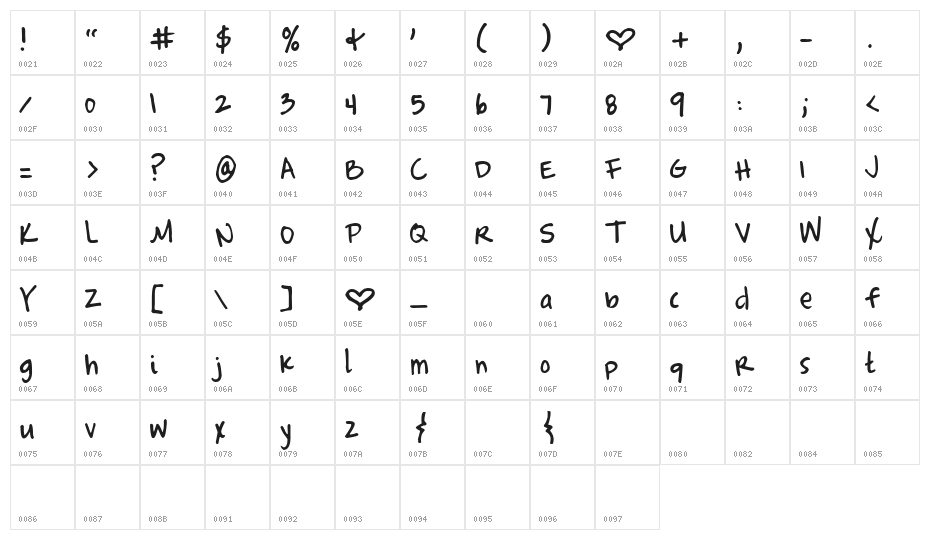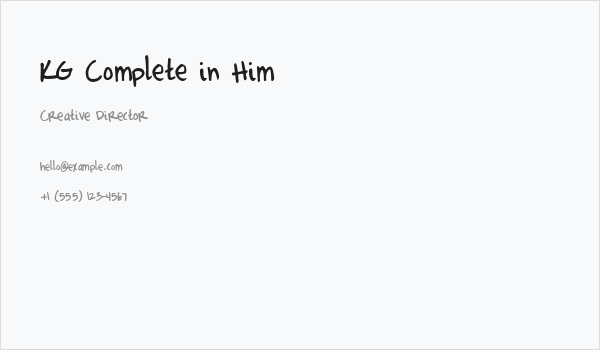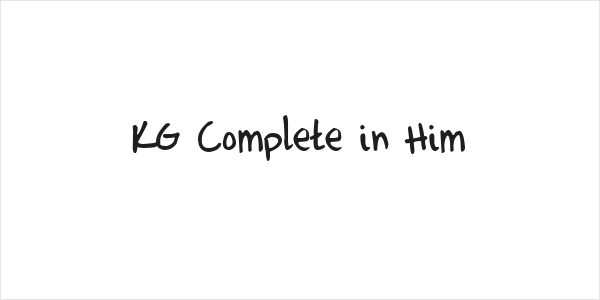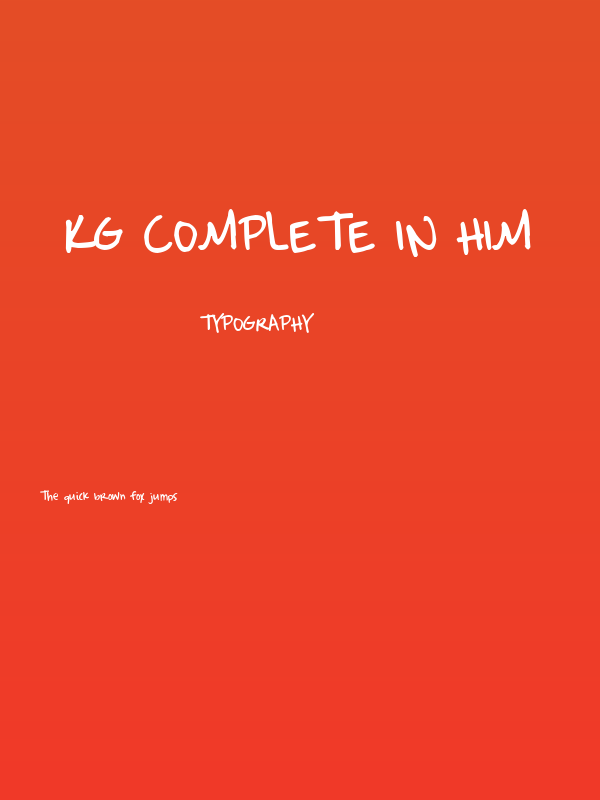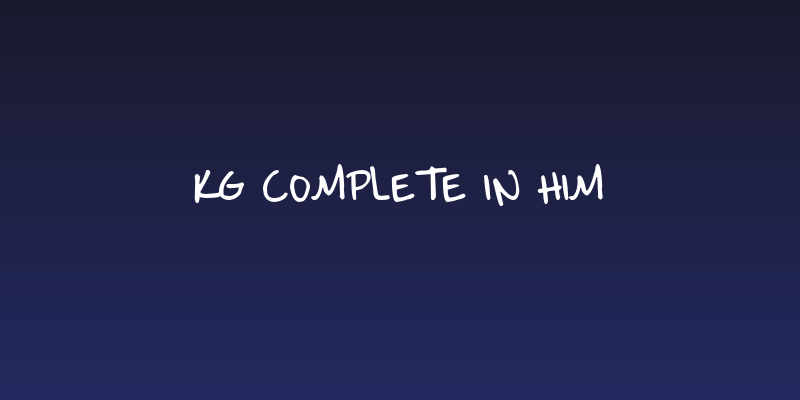
KG Complete in Him Font
KG Complete in Him Description
This playful and informal font features a handwritten style with a casual and friendly appearance. The letters are slightly irregular, giving it a natural and personal touch. The uppercase and lowercase characters maintain a consistent flow, while the numbers and special characters complement the overall style. The strokes are moderately thick, providing good readability without losing the handwritten charm. This font is versatile and can be used to add a personal touch to various design projects.
| Use Case | Headlines, Informal text, Personal projects |
| Proposed Projects | Ideal for greeting cards, children's books, personal blogs, and informal branding. |